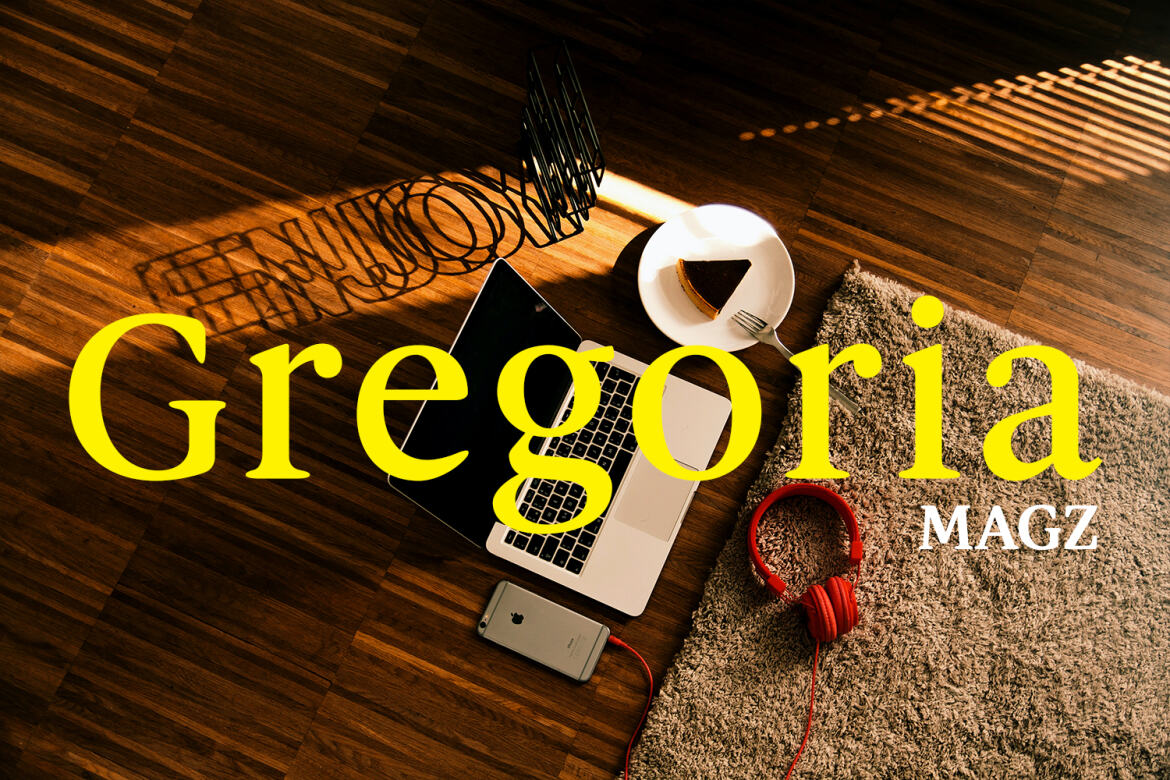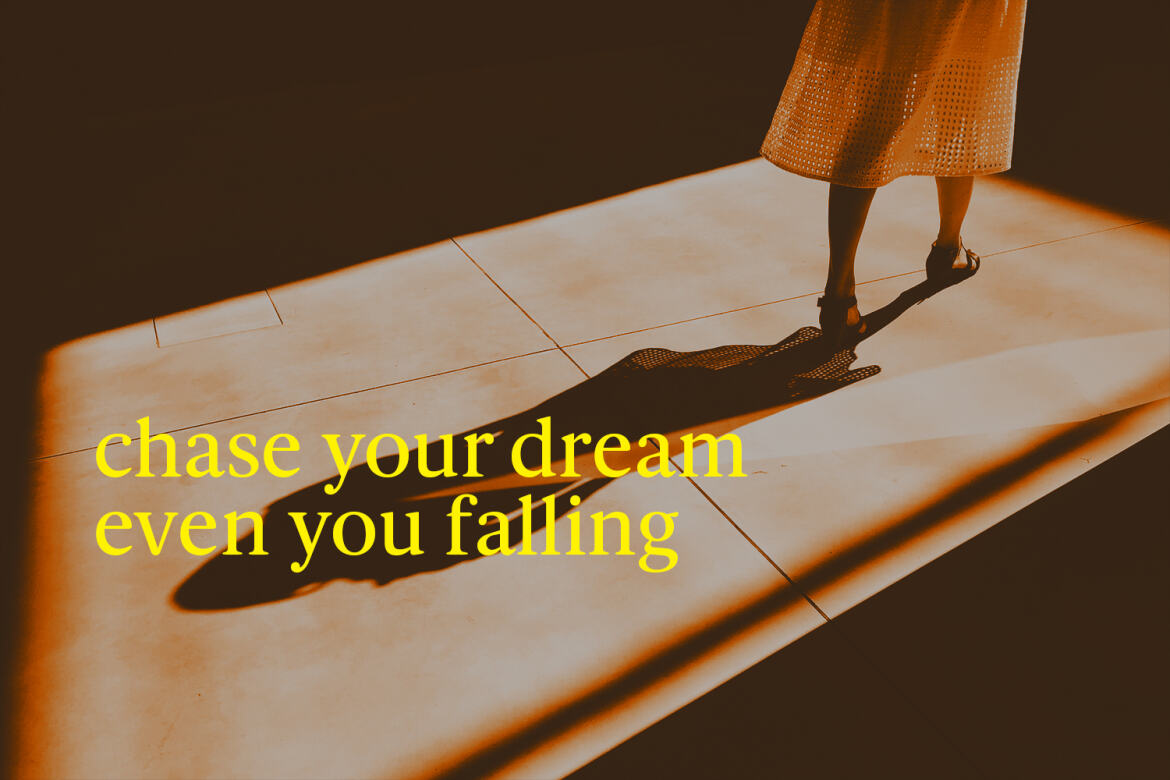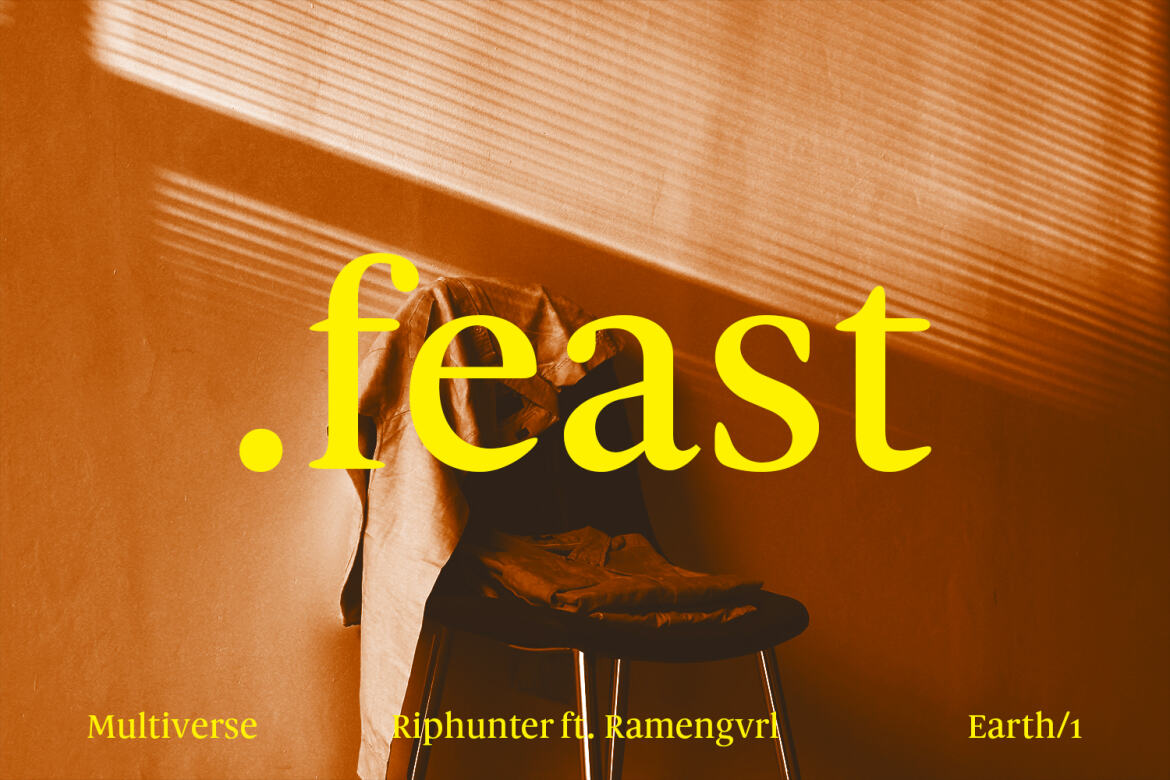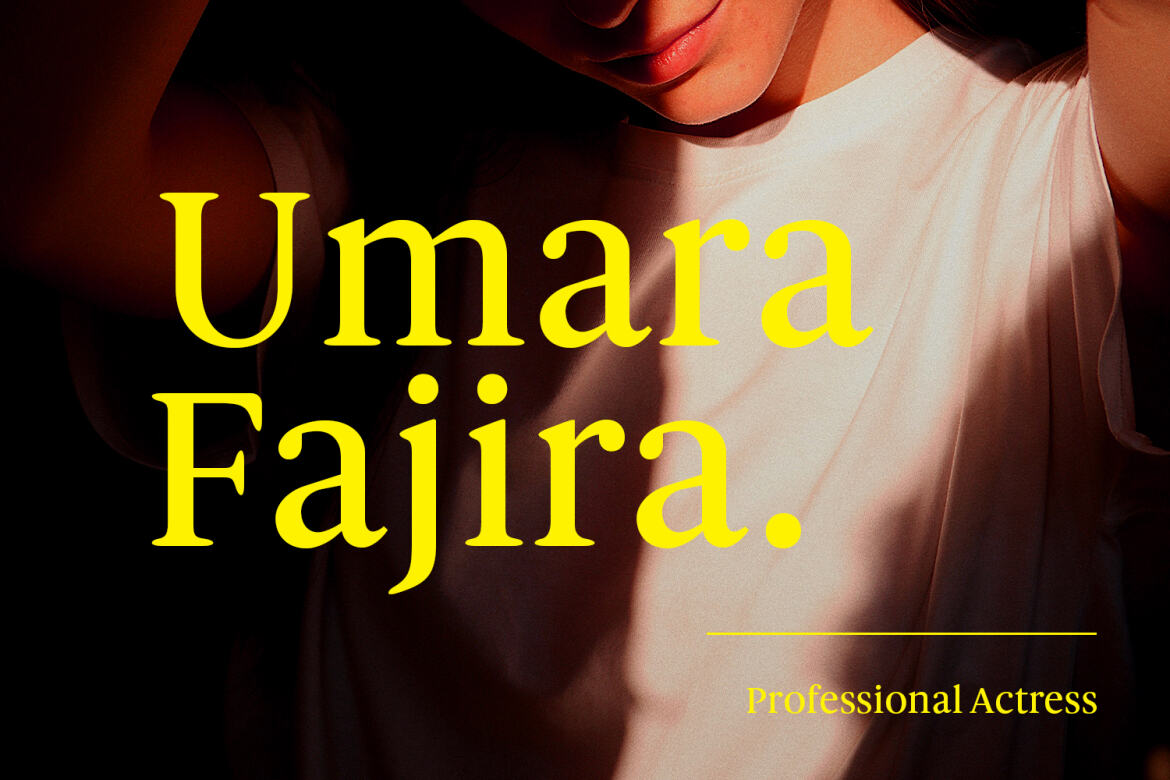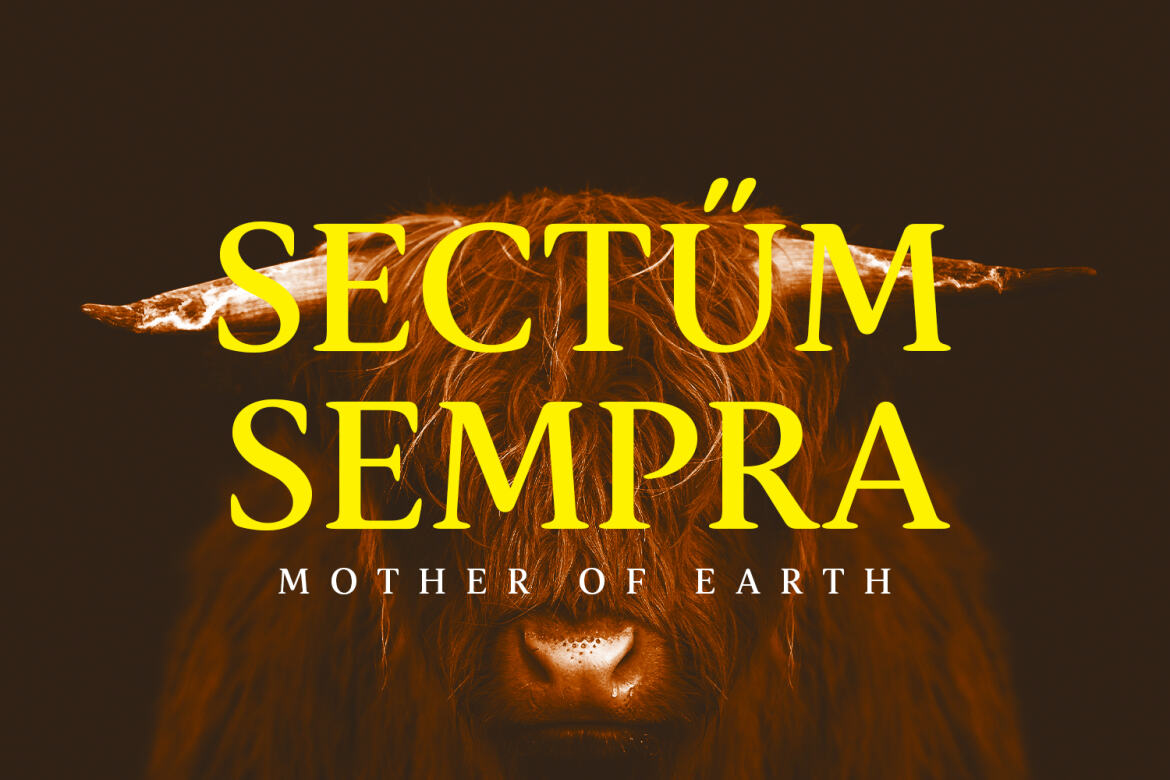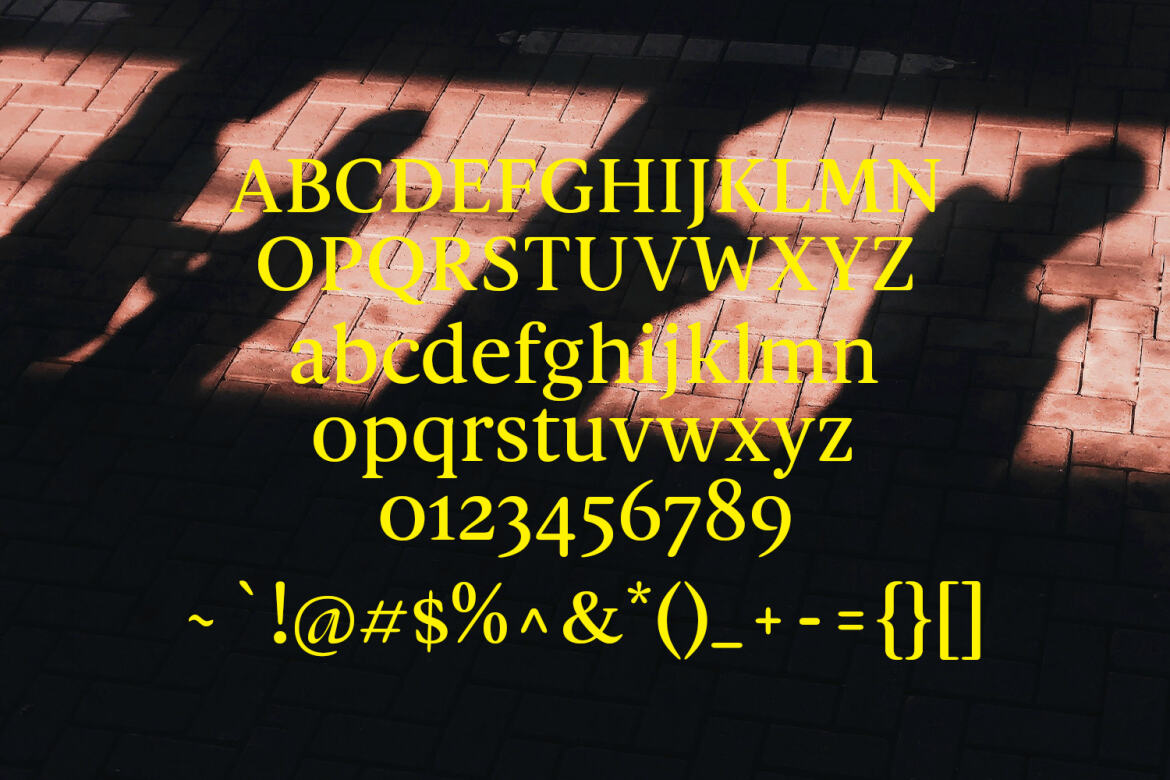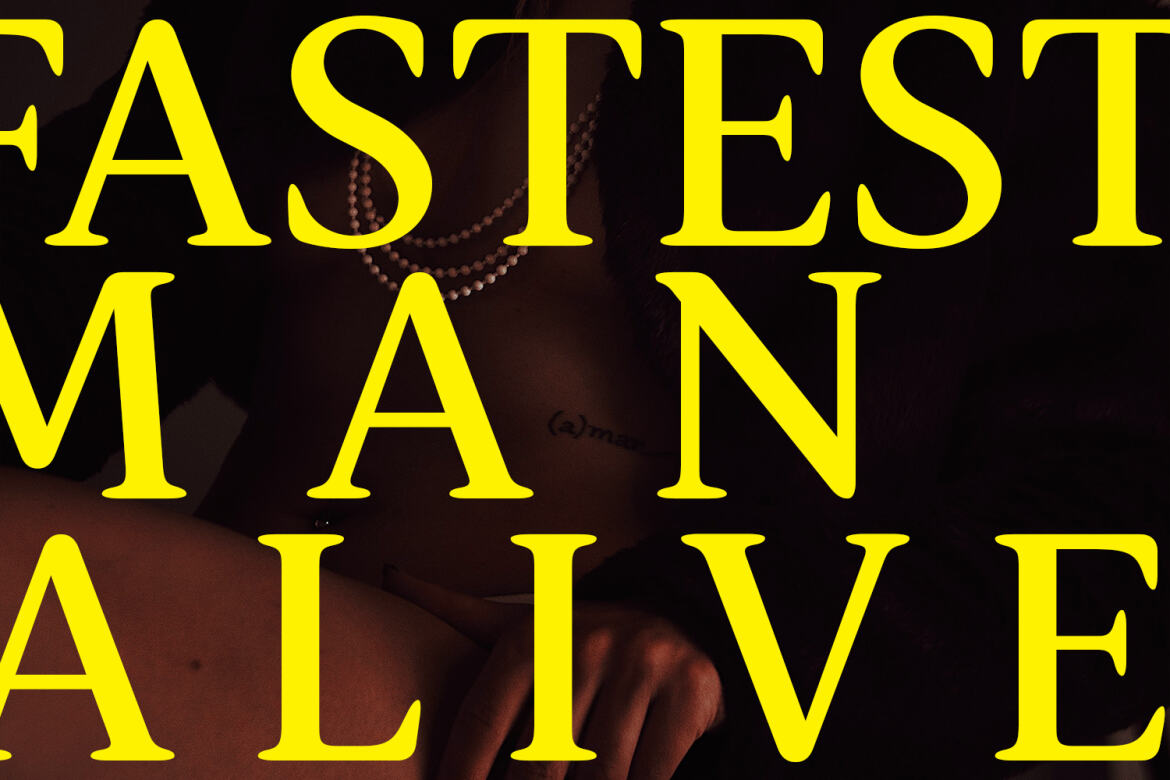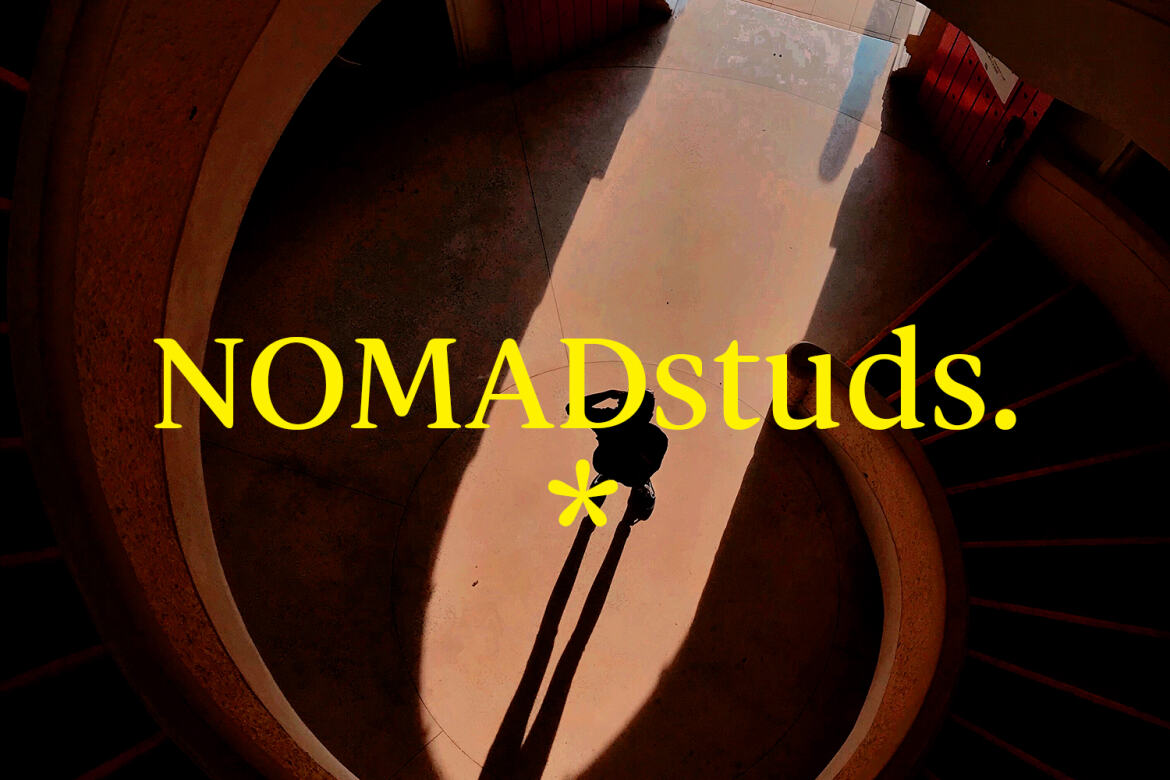
Spaziel Modern Rounded FREE Serif Font
Spaziel Serif Round preview
Spaziel Serif Round
Spaziel Round serif is a modern serif font. With regular round stroke, and fun character. To give you an extra creative work. Spaziel font support multilingual more than 100+ language. This font is good for logo design, Social media, Movie Titles, Books Titles, a short text even a long text letter and good for your secondary text font with Script typeface. Make a stunning work with Spaziel font.